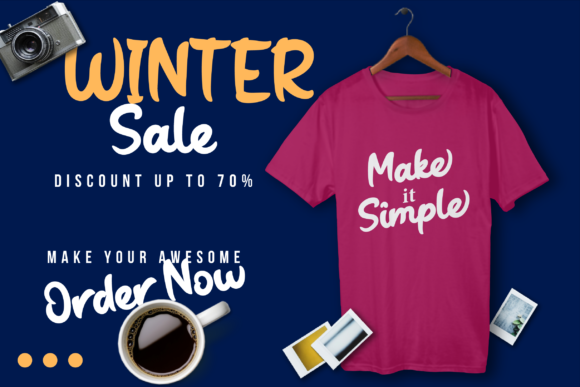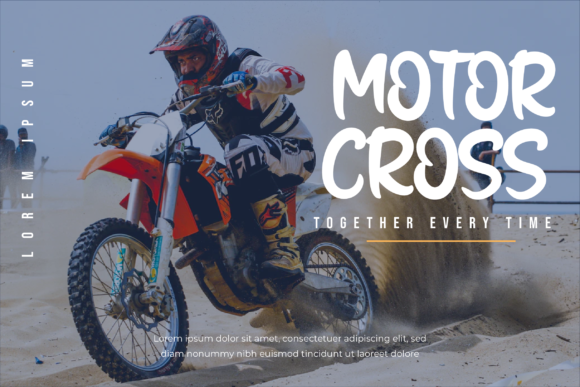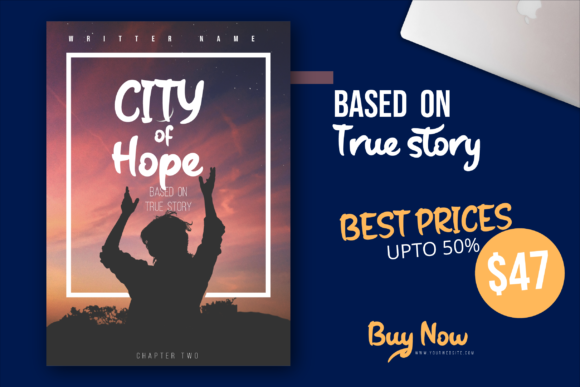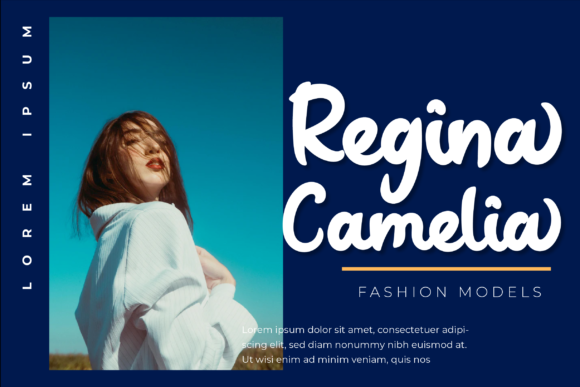
Introduction to Rentga Font
Have you ever been working on a creative project, staring at a blank canvas, and suddenly the perfect font pops into your mind? For designers, that ‘aha’ moment is a thrill like no other. For me, it was the day I stumbled upon the Rentga Font, and I knew I had to dive in and explore its full potential.
As a versatile and modern brush display font, Rentga Font is a game-changer for designers looking to add a touch of elegance and sophistication to their designs. Its flowing and contemporary design makes it perfect for a wide range of creative projects, from branding and advertising to editorial and digital media. And the best part? It’s available for free download, making it an invaluable resource for designers of all levels.
Whether you’re working on a high-quality design project with a transparent background or looking for a unique font to give your design a personal touch, Rentga Font is an excellent choice. Its high-quality design and versatility make it a valuable addition to any designer’s toolkit, and its free download means you can start using it right away.
Key Features of Rentga Font
- High-quality font design suitable for creative projects, offering a unique and stylish look.
- Features a transparent background, allowing for seamless integration with any design or image.
- Designed with a high resolution (up to 300 DPI), ensuring crisp and clear text display.
- Available in various font sizes, from small to large, making it suitable for a range of creative projects.
- Can be easily scaled up or down without losing its quality, making it an ideal choice for designers.
Honest Review: Rentga Font
I recently stumbled upon the Rentga Font, and I must say, it’s been a game-changer for my creative projects. This font is perfect for those who need a sleek, modern look without breaking the bank.
One of the things I love about the Rentga Font is its high quality and versatility. It’s available in various weights and styles, making it an excellent choice for designing logos, brochures, or even digital products. The font also features a transparent background, which makes it super easy to use and edit.
Here are some of the key features that I think make the Rentga Font stand out:
- ✨ High-quality design with a modern aesthetic
- ✨ Transparent background for easy editing
- ✨ Suitable for various creative projects, including logos, brochures, and digital products
While the Rentga Font is a great find, there are a few limitations to keep in mind:
- ⚠️ Limited character set, which might not be ideal for longer text-based projects
Overall, I’m really impressed with the Rentga Font, and I think it’s a great addition to any designer’s toolkit. It’s a free download that’s perfect for those who want high-quality, modern designs without breaking the bank.
The Rentga Font is ideal for a variety of creative projects, including logos, graphics, and documents. Its transparent background makes it perfect for creating visually appealing designs that stand out from the crowd.